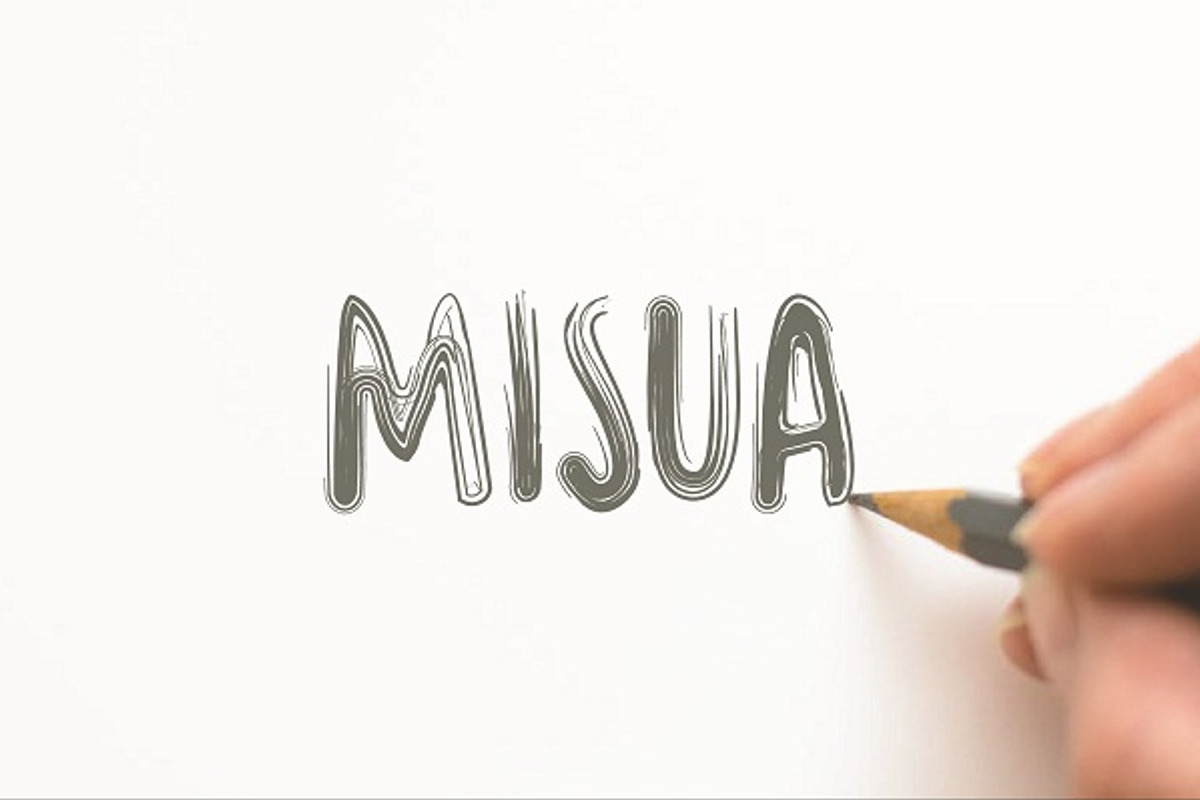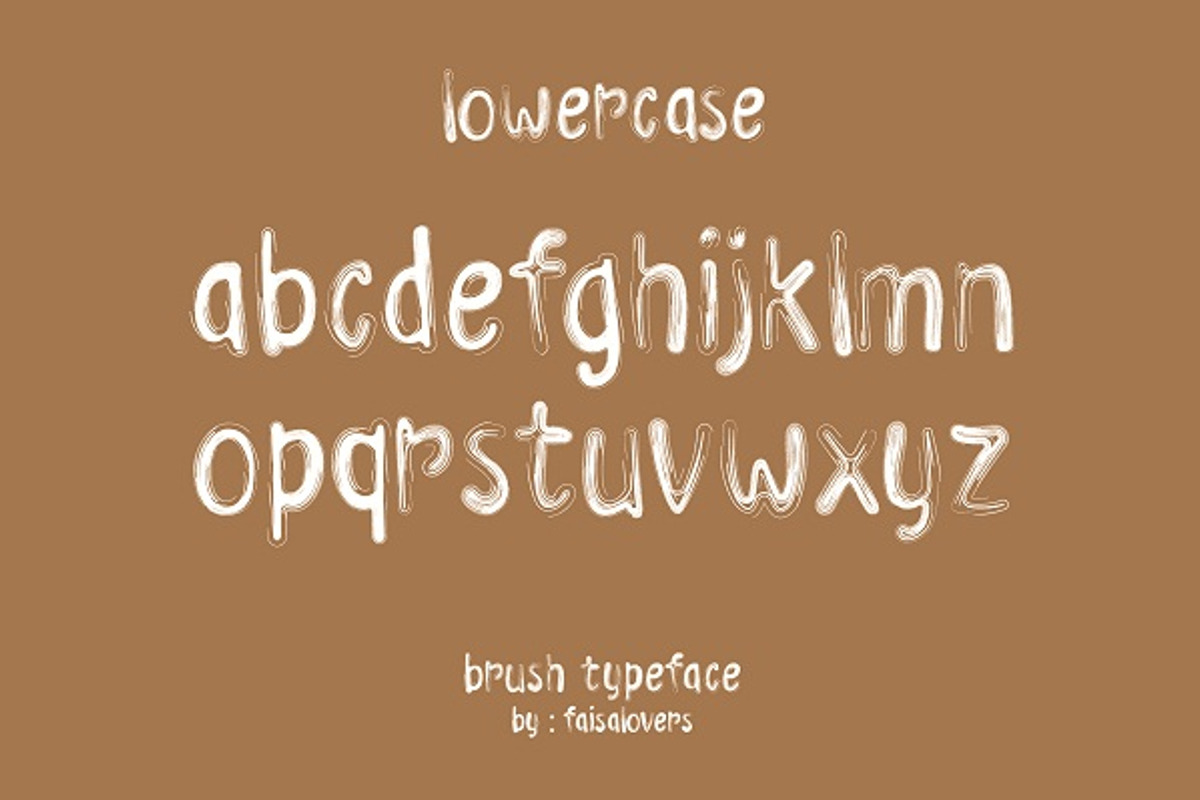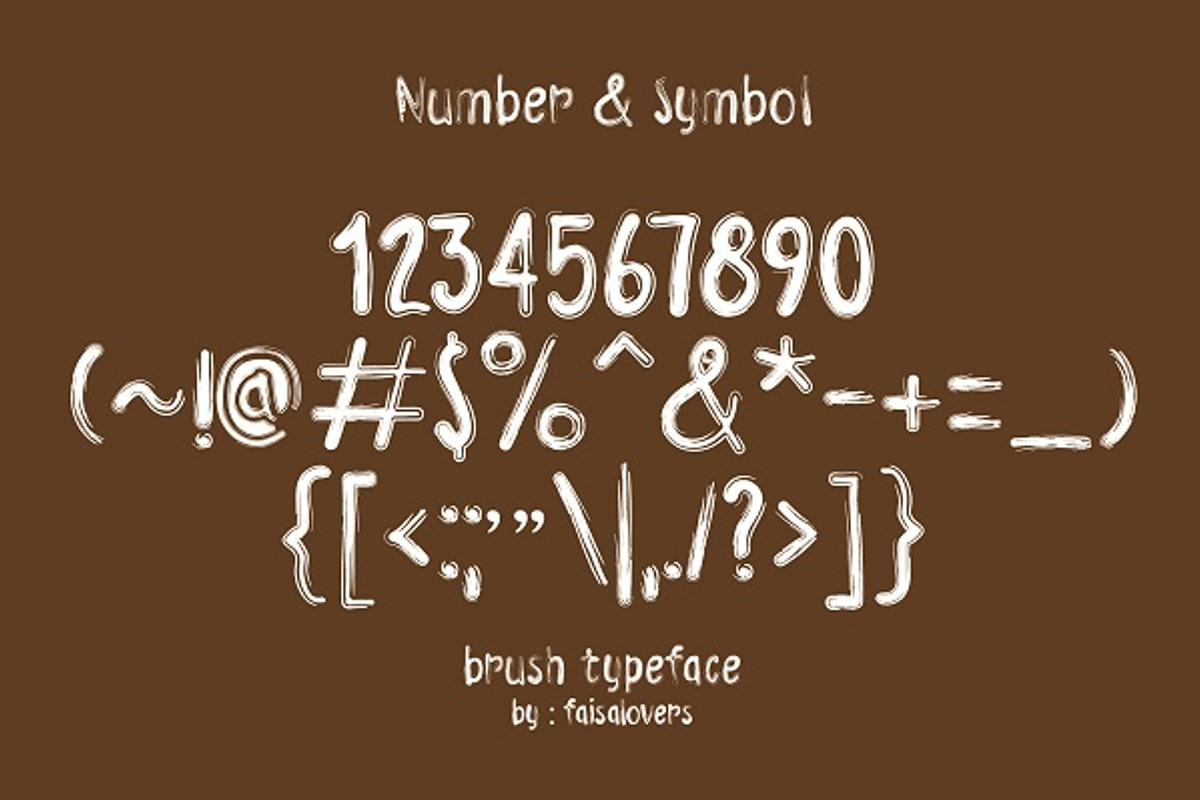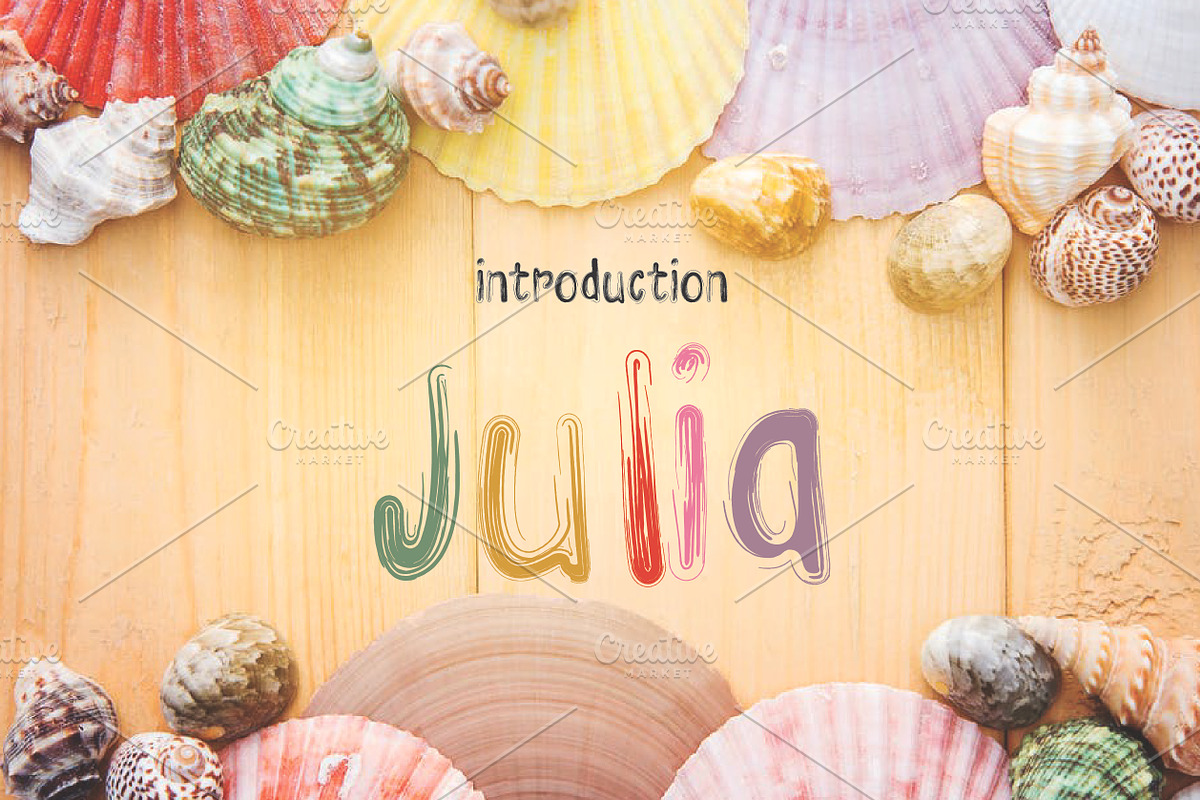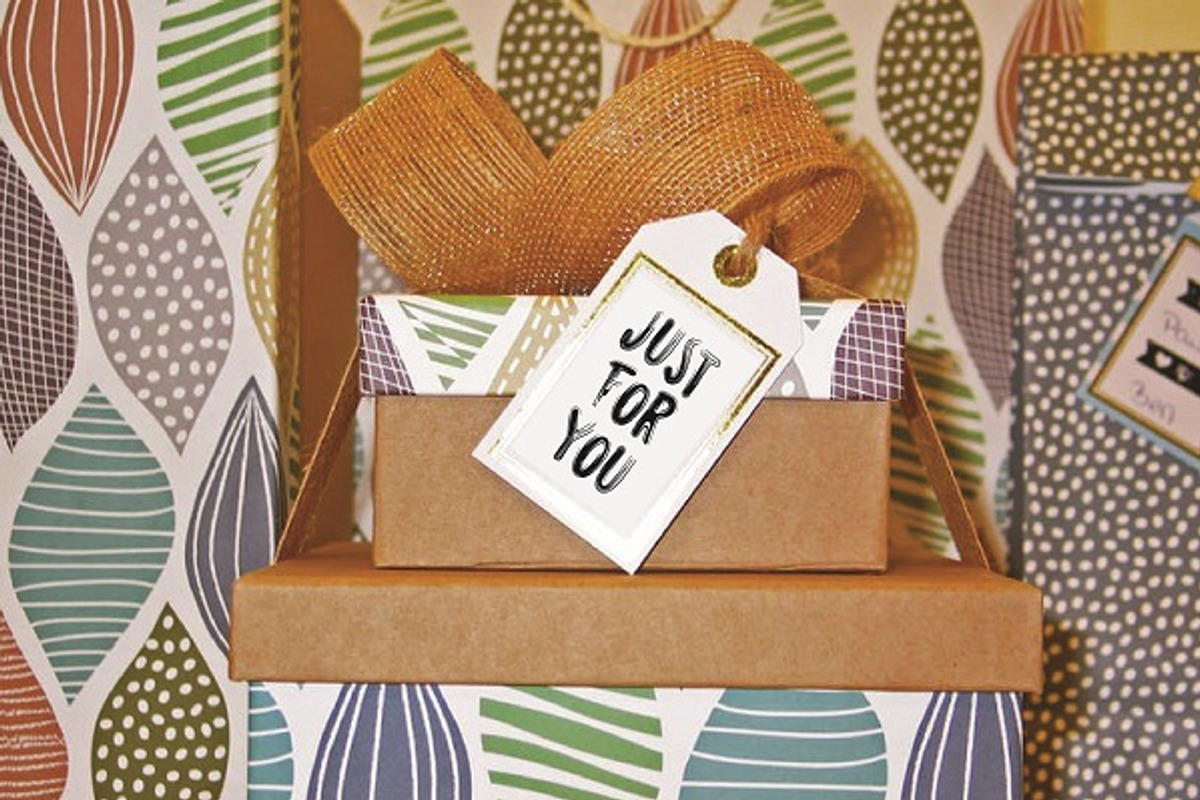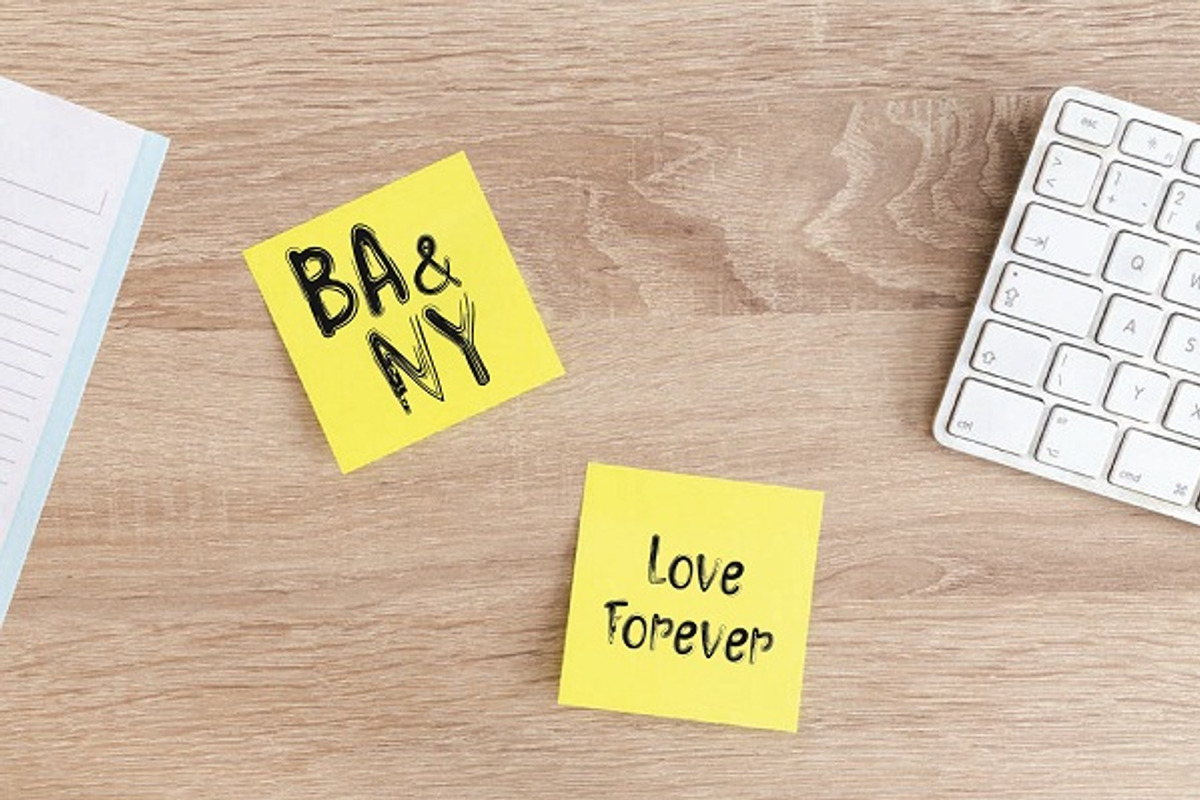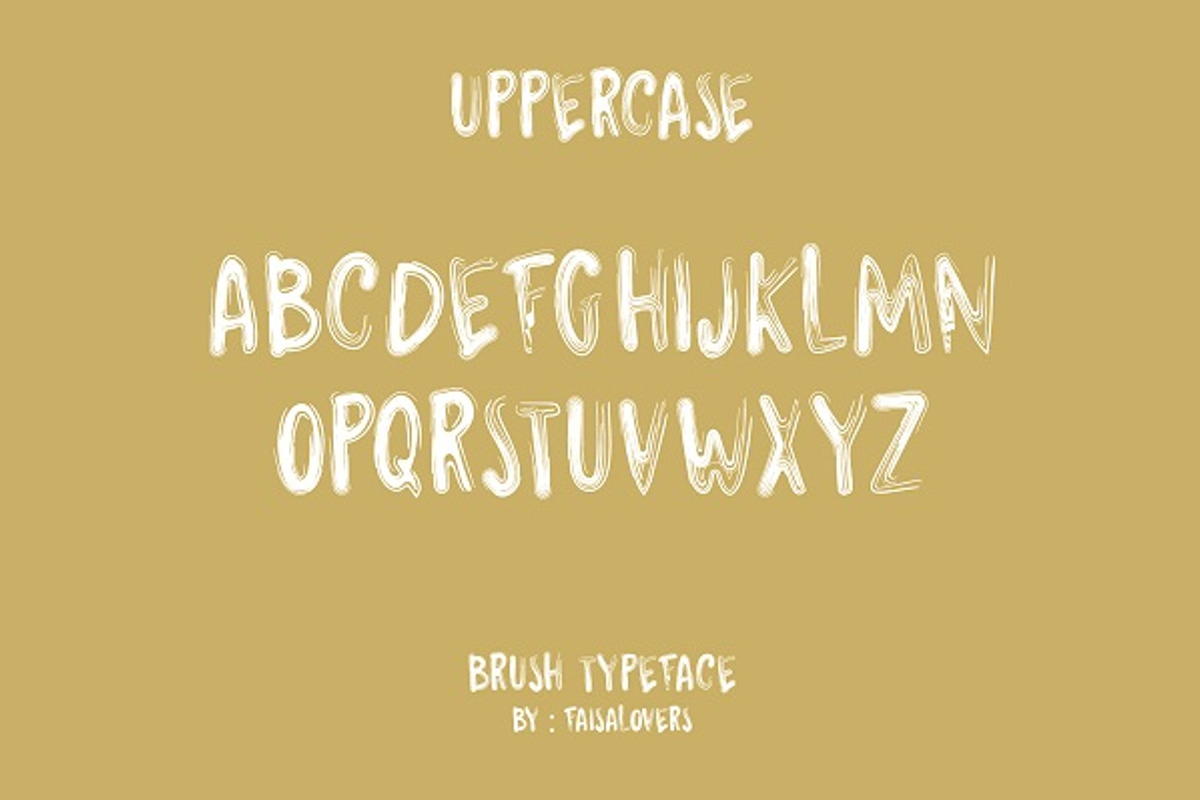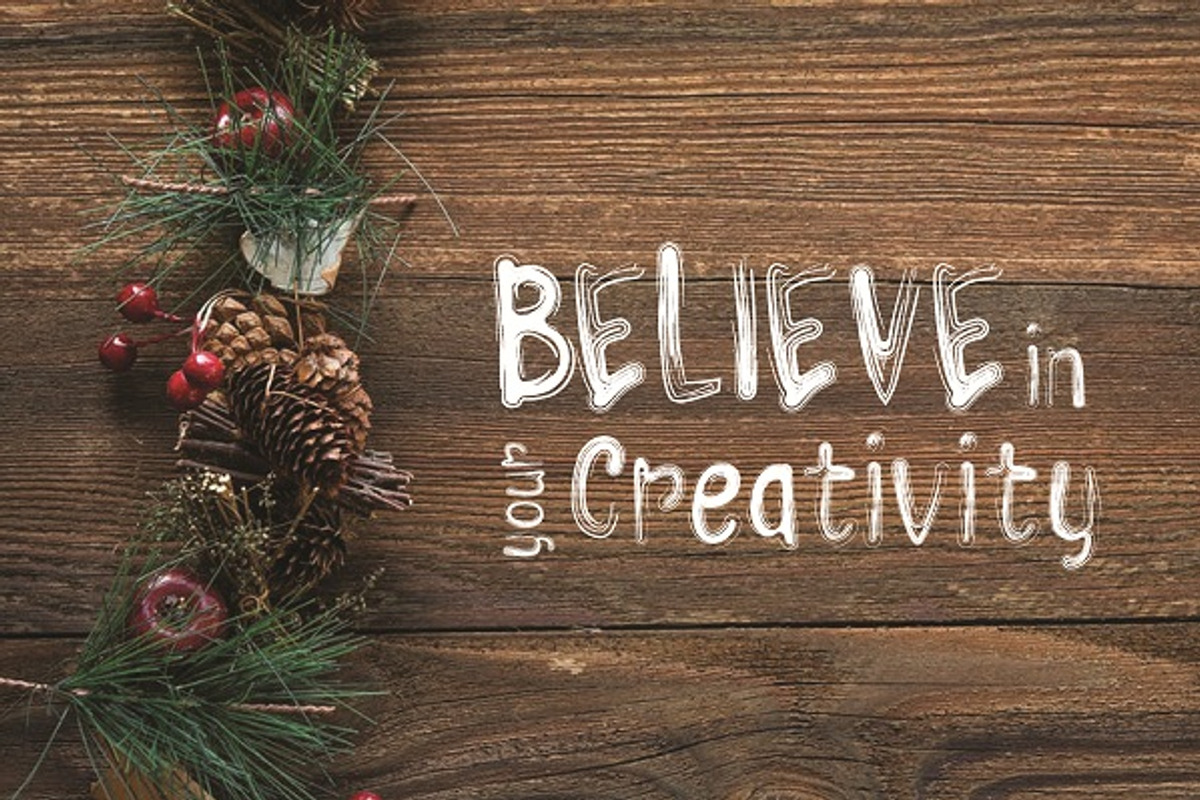
Julia font
julia font for display,amazing font
Why Julia font is worth a look
Julia font by khalwa.studio fits naturally into Branding, posters, packaging, typography.